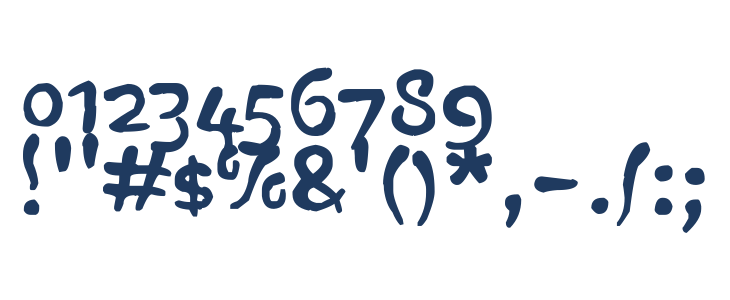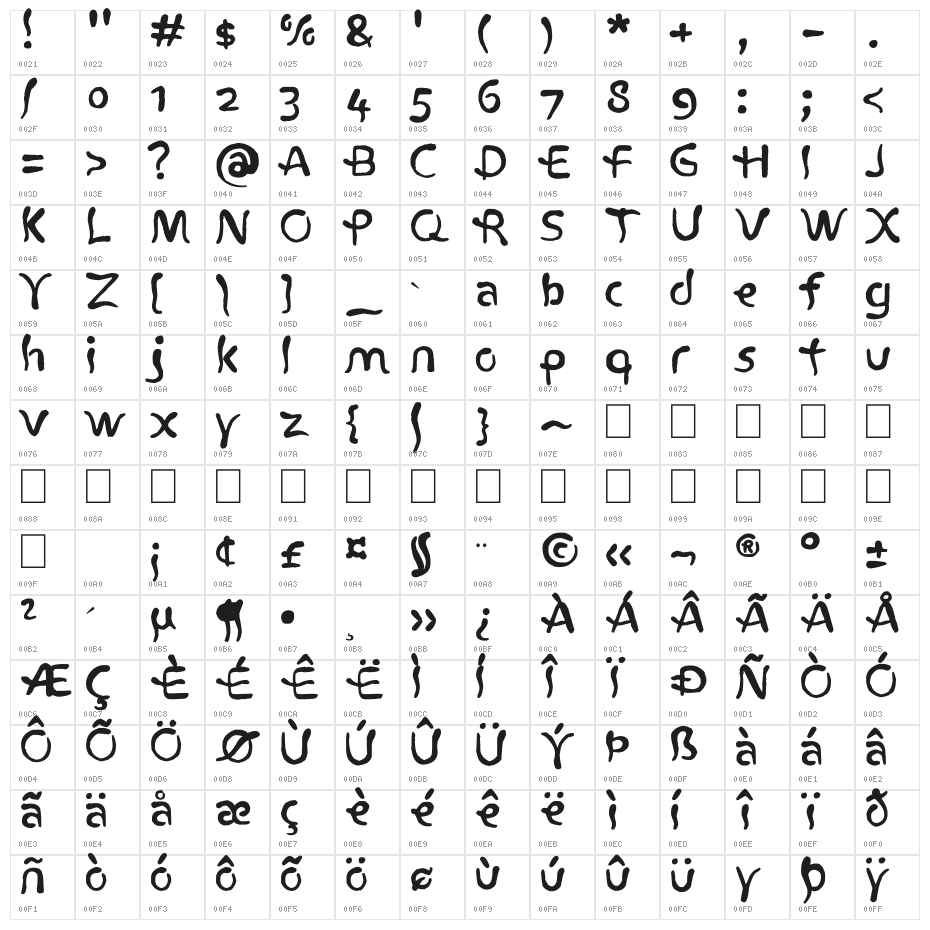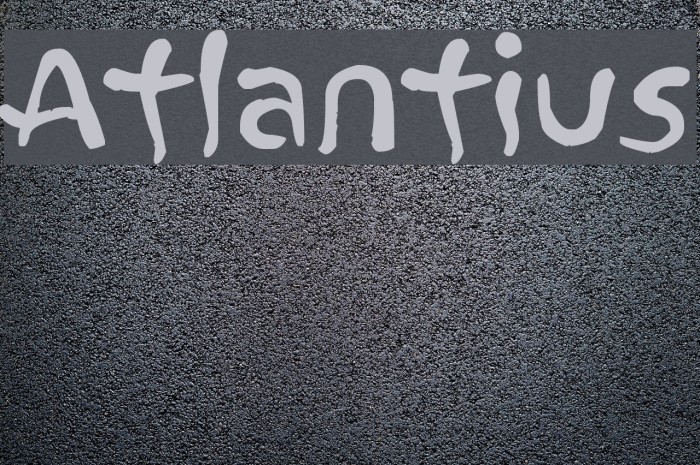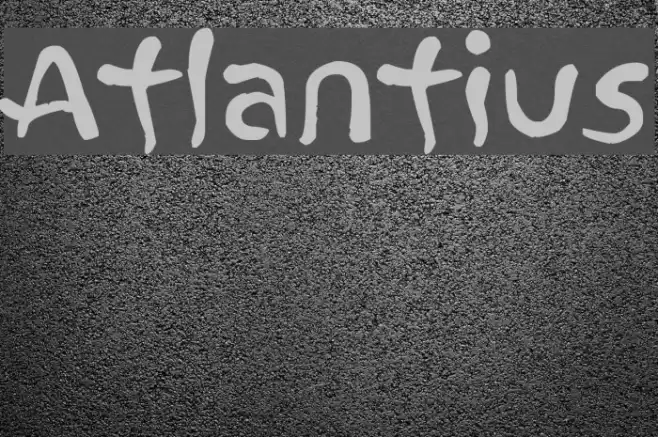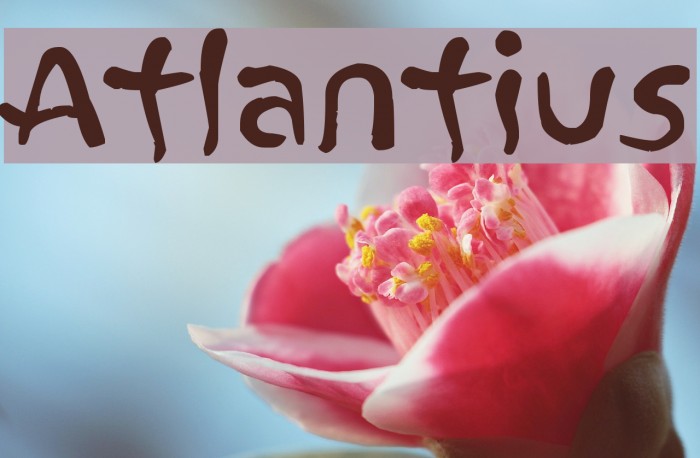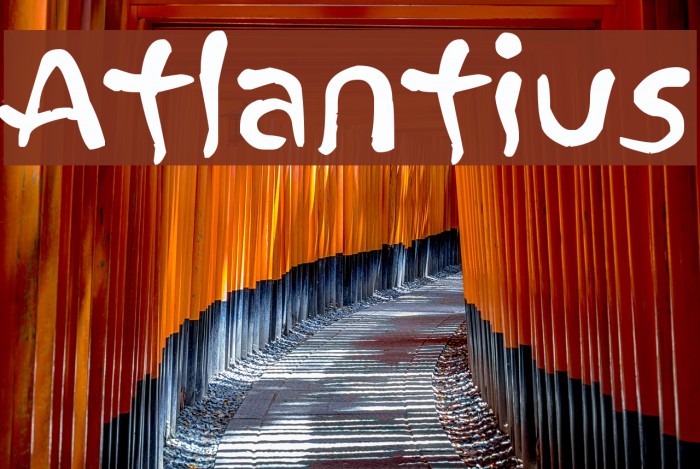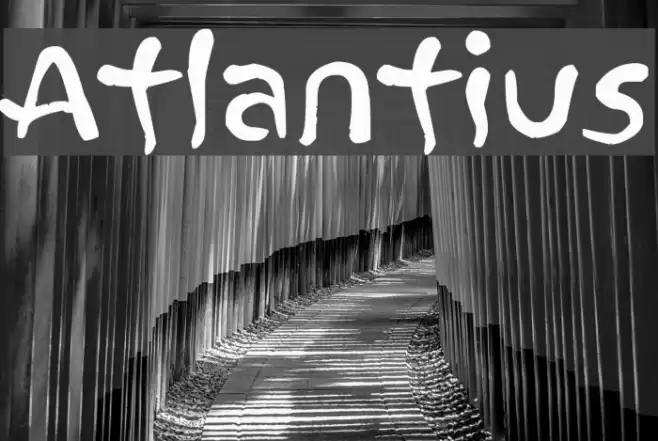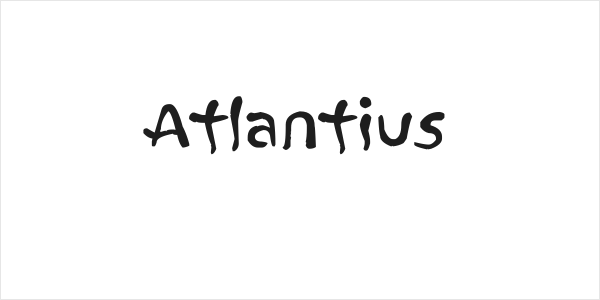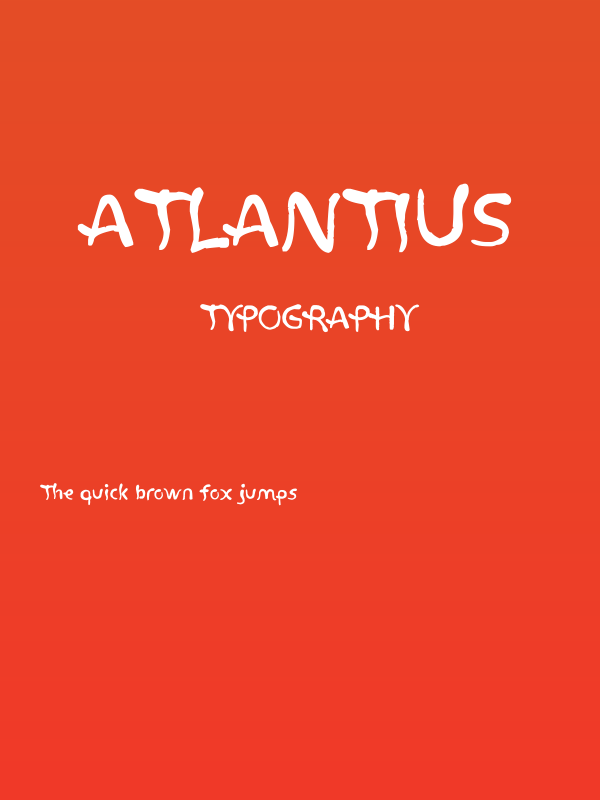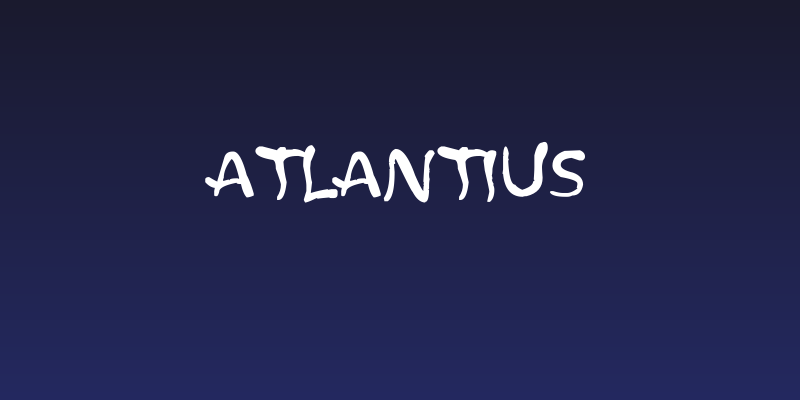
Atlantius Font
Atlantius Description
This font exhibits a playful and artistic style, characterized by its hand-drawn appearance. The letters are bold and slightly irregular, giving them a whimsical and informal feel. The strokes are thick and consistent, with a medium contrast between the thick and thin parts of the letters. The characters are rounded and have a slightly uneven baseline, enhancing the casual and friendly vibe. The numbers and special characters follow the same playful design, making the font suitable for creative and informal projects.
| Proposed Projects | Ideal for children's books, creative posters, casual branding, and playful invitations. |